Great graphic design is powered by great font selection. But picking great fonts is a challenge most people. Luckily, Canva has made adding great fonts to your designs much easier. In this tutorial, our team of design experts will cover the best floral fonts in Canva.
What is a Floral Font?
Floral style fonts are fonts that are designed to look like they have been hand-drawn or written in a script that resembles the fluid lines of flowers and vines. Some characteristics of floral style fonts include:
- Organic and fluid lines: Floral style fonts often feature flowing, curvy lines that mimic the shapes of flowers and vines.
- Ornate and decorative: These fonts usually include intricate details and flourishes that add a decorative touch to the lettering.
- Feminine and delicate: Floral style fonts are often associated with femininity and delicacy, and are often used in designs aimed at women.
- Romantic and whimsical: These fonts have a romantic and whimsical feel that can add a playful or dreamy touch to a design.
- Script and cursive: Most floral style fonts are written in a script or cursive style, which gives them a handwritten look.
- Vintage or retro: Some floral style fonts have a vintage or retro feel, and may be inspired by calligraphy or typography from past eras.
Best Floral Fonts in Canva
1. Lovera
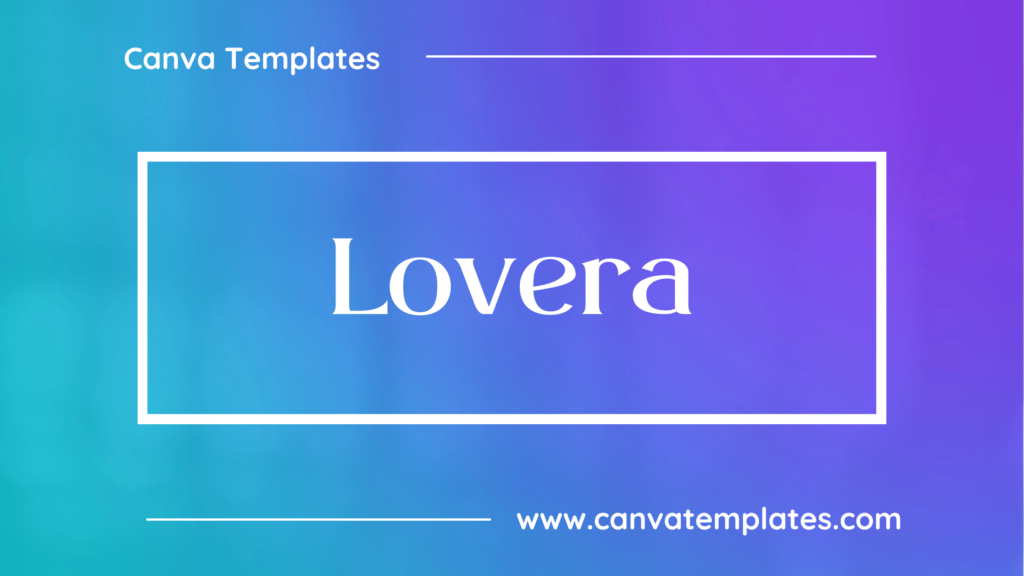
Lovera is a modern and stylish serif font with a clean, minimalist design. It features simple, geometric letterforms with a no-nonsense, business-like feel that is perfect for logos, headlines, and other graphic design projects.
2. Nectarine
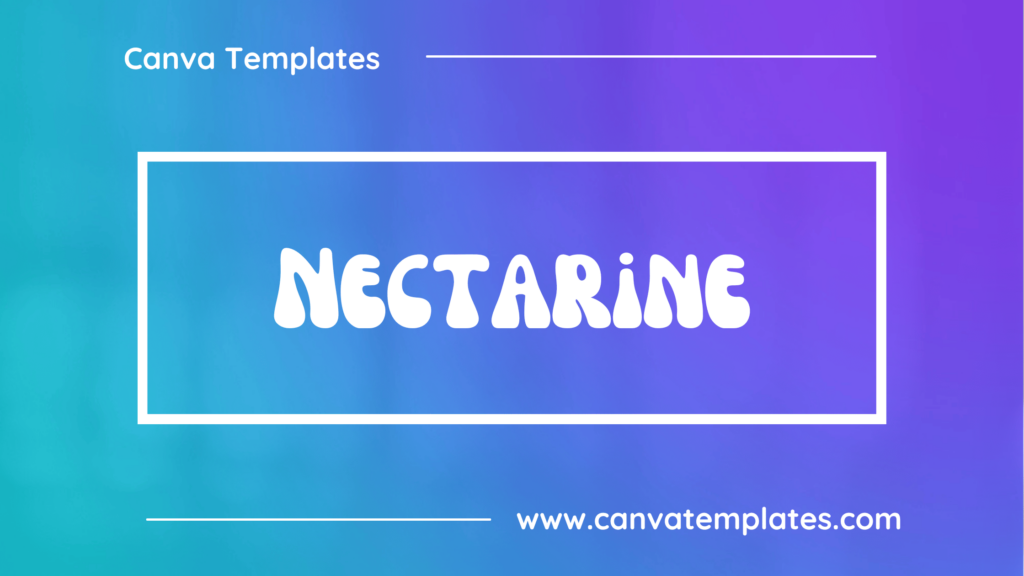
Nectarine is a playful and informal script font with a bouncy, handwritten style. It features a mix of thick and thin strokes and has a slight slant to its letterforms, giving it a dynamic and energetic feel.
3. Mr Dafoe
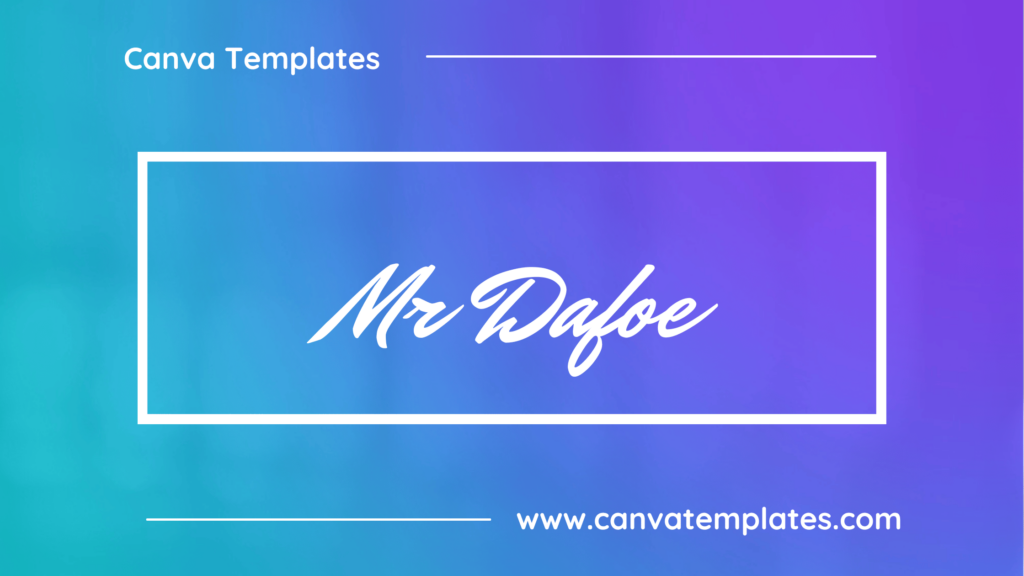
Mr Dafoe is a bold and expressive display font with a retro, vintage style. It features chunky, blocky letterforms with a textured, distressed look that gives it a weathered, worn-in feel.
4. Mak
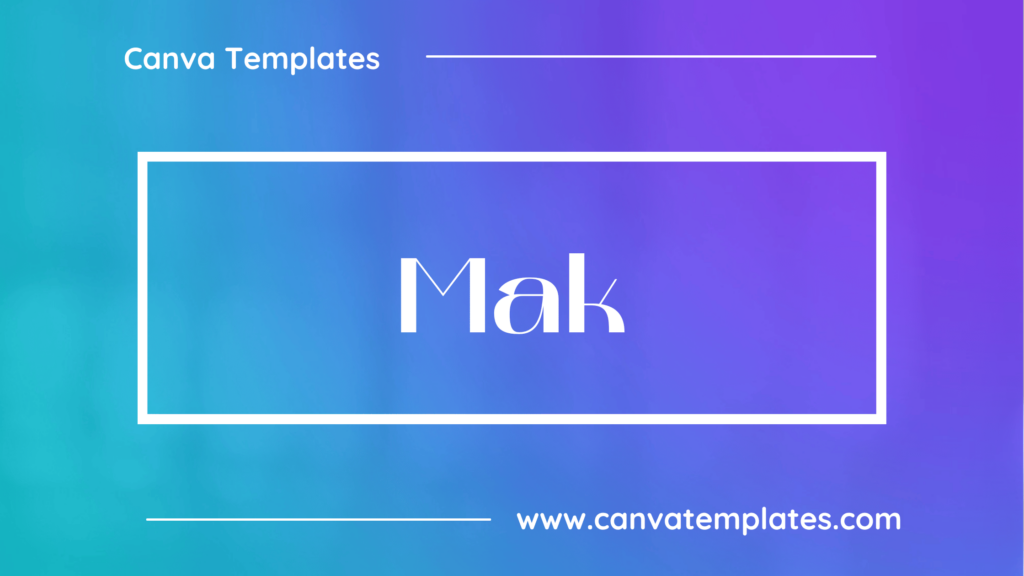
Mak is a simple and elegant sans-serif font that is characterized by its clean lines and minimalistic design. It is a versatile font that can be used in a wide range of applications, from logos and branding to body text.
5. Blastine
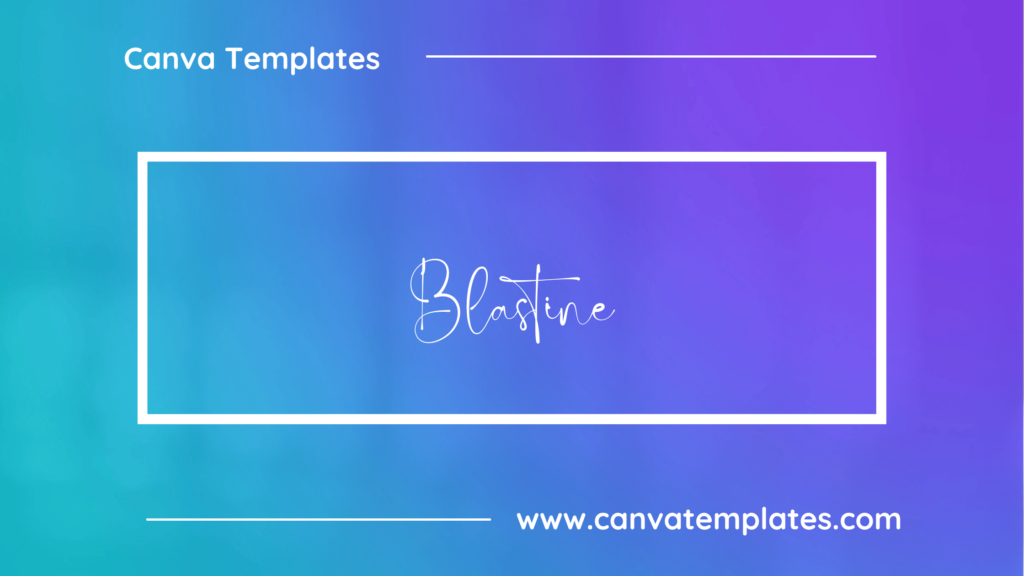
Blastine is a decorative display font with a bold, playful style. It features chunky, blocky letterforms with an irregular, hand-drawn appearance. It is often used in designs that require a touch of whimsy and fun.
6. Eyesome Script
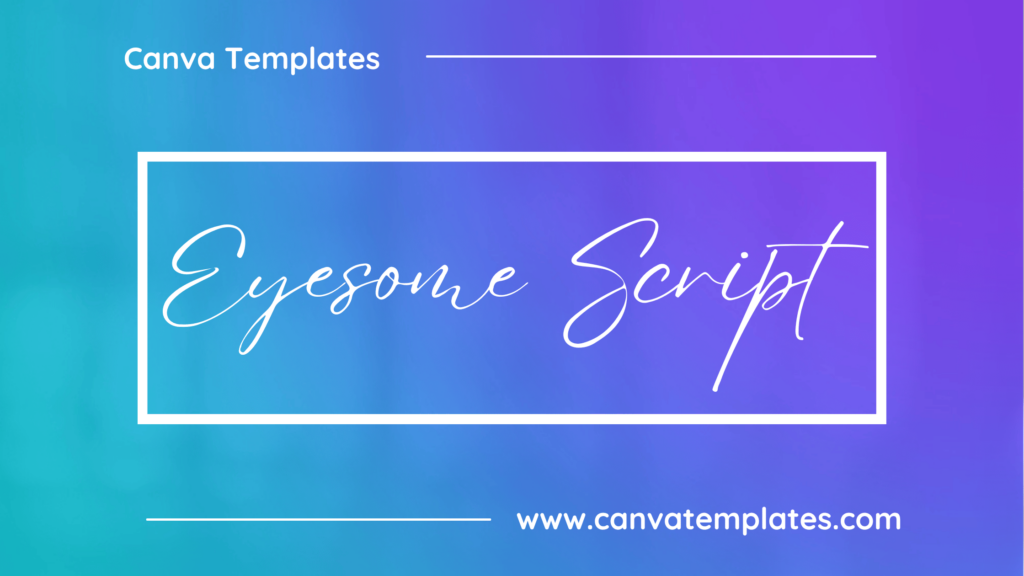
Eyesome Script is a calligraphic script font with a flowing, elegant style. It features graceful, sweeping lines and has a romantic, feminine feel. It is often used in designs that require a touch of sophistication and elegance.
7. Satisfy
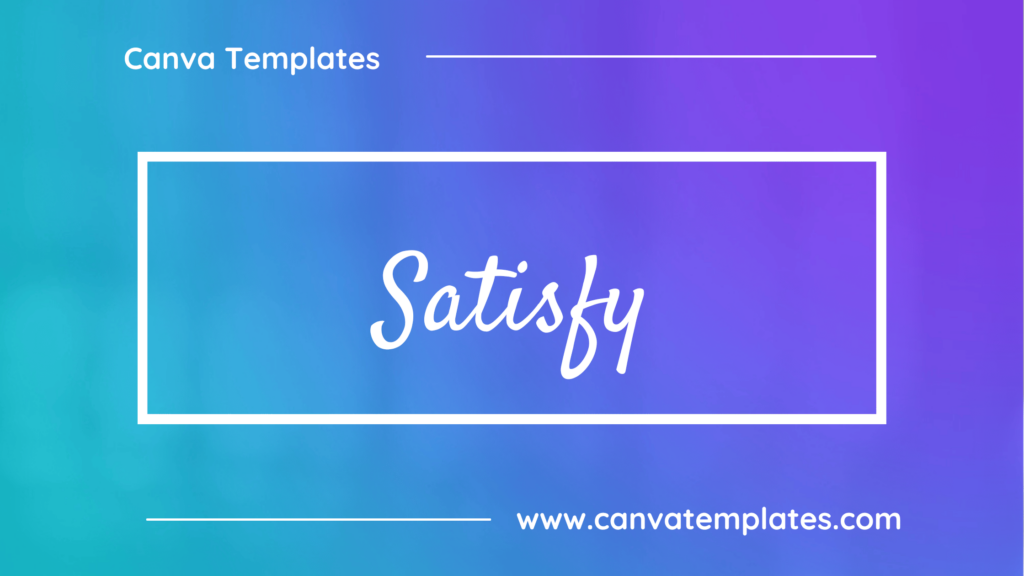
Satisfy is a calligraphic script font that is designed to look like elegant handwriting. It features graceful, flowing lines and has a delicate, feminine feel. It is often used in designs that require a touch of sophistication and elegance.
8. Pacifico
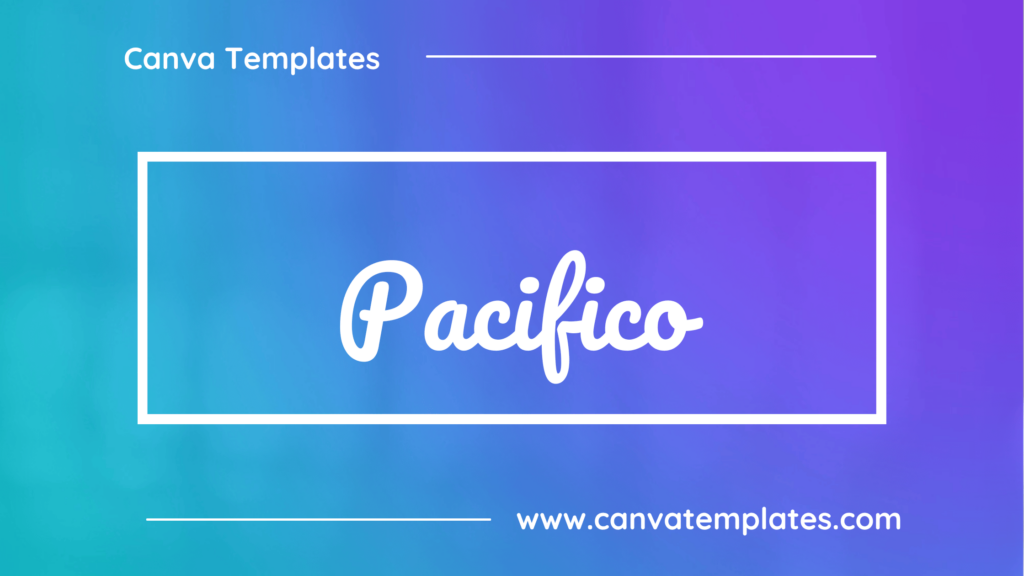
Pacifico is a cursive font that is inspired by the handwriting of the 1950s and 1960s. It features fluid, flowing lines and has a retro, nostalgic feel. It is often used in designs that evoke a sense of vintage or retro style.
9. IreneFlorentina
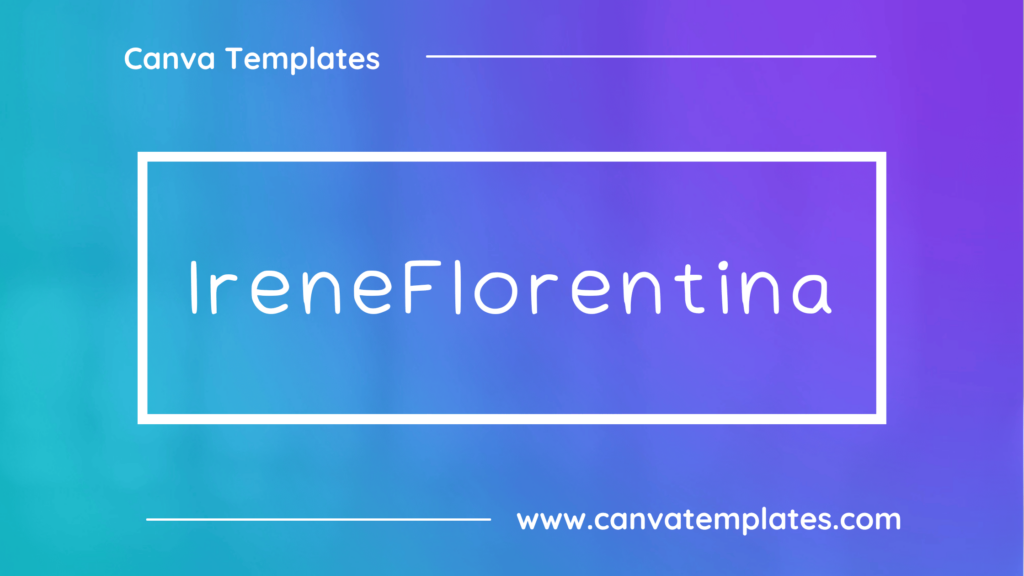
IreneFlorentina is a decorative display font with an ornate, vintage-inspired style. It features intricate, filigree-like details and has a delicate, refined feel. It is often used in designs that require a touch of old-world charm and elegance.
10. Best Light
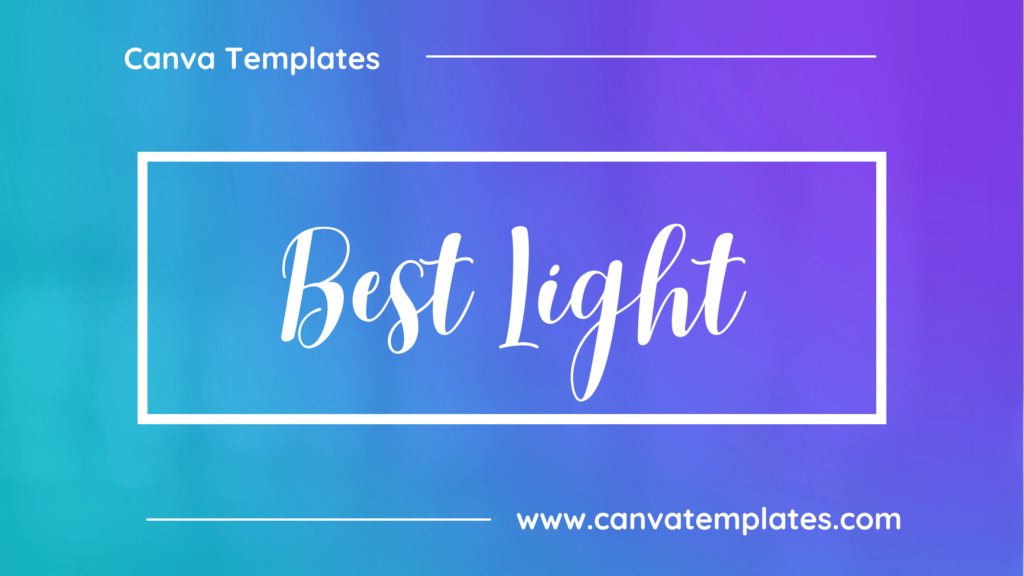
Best Light is a clean and modern sans-serif font that is characterized by its thin, delicate lines. It has a minimalist, understated style that is perfect for designs that require a sleek, modern look.